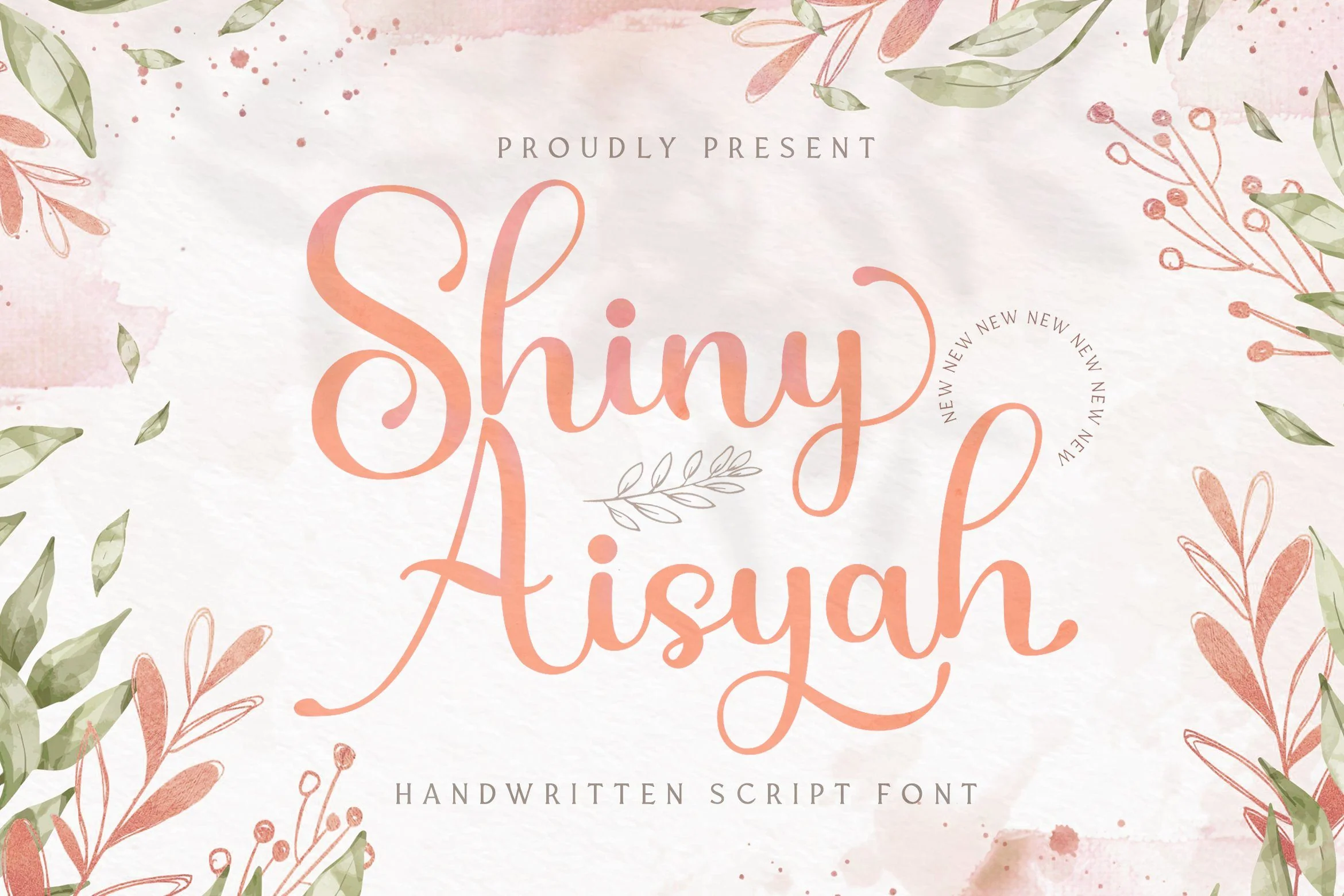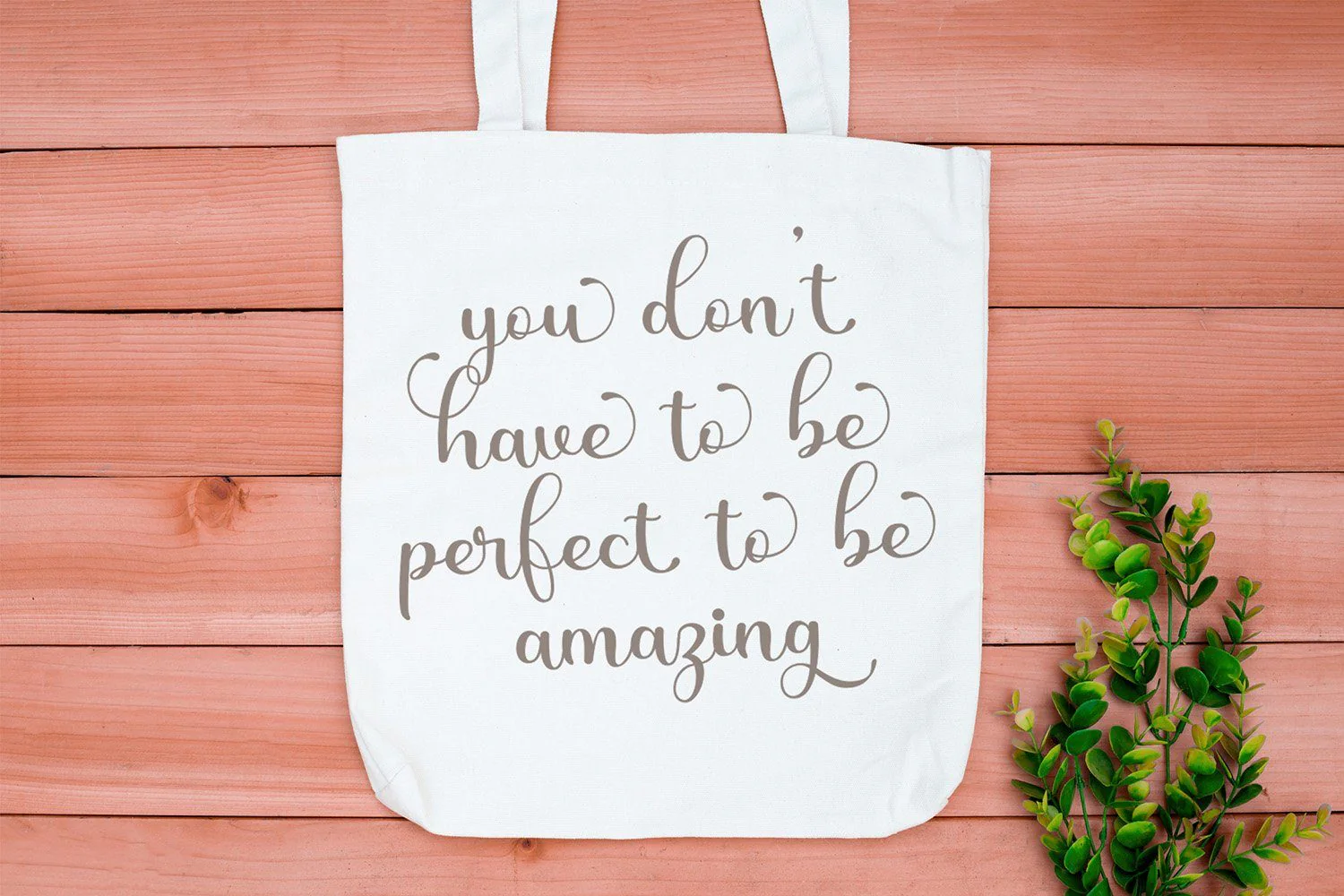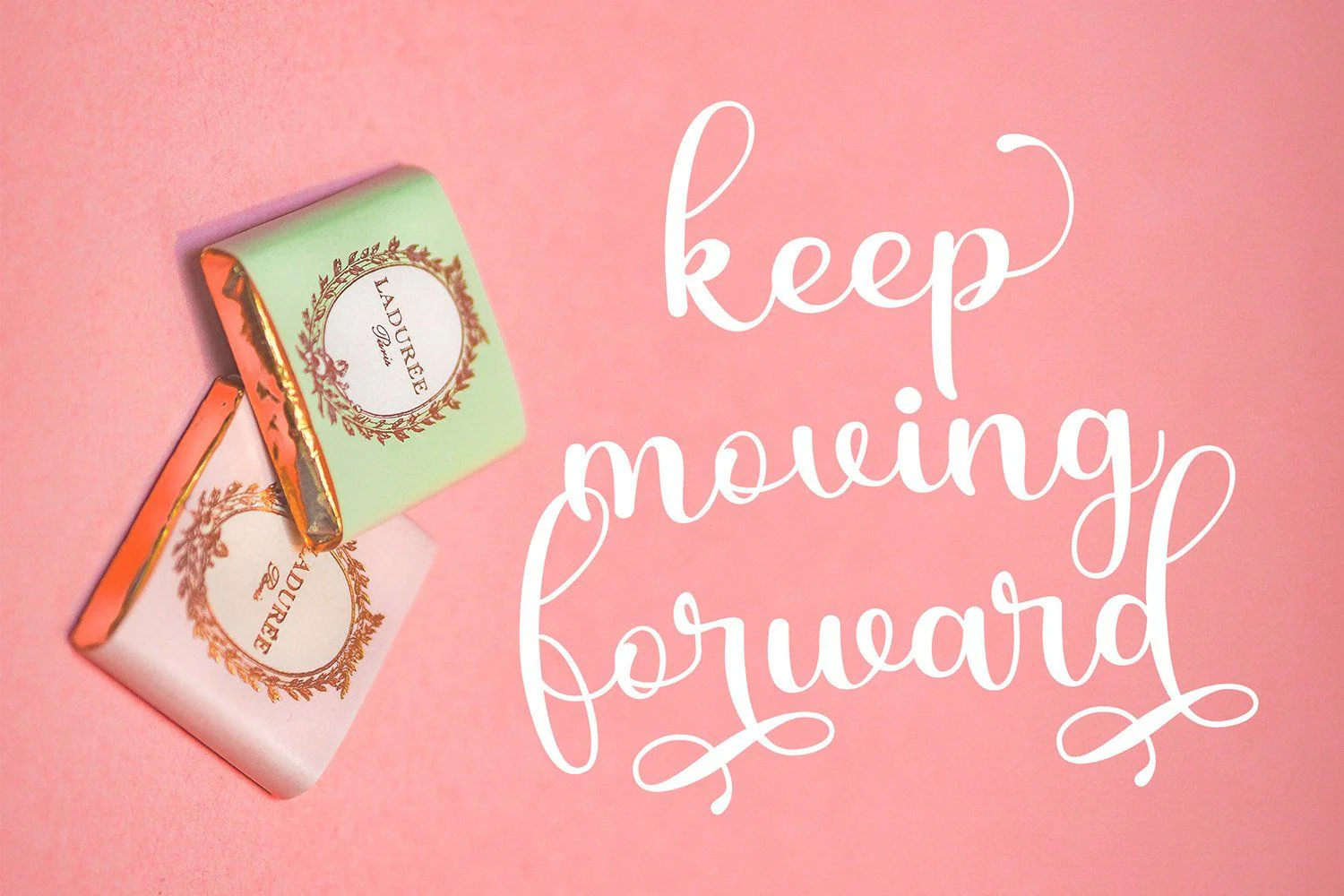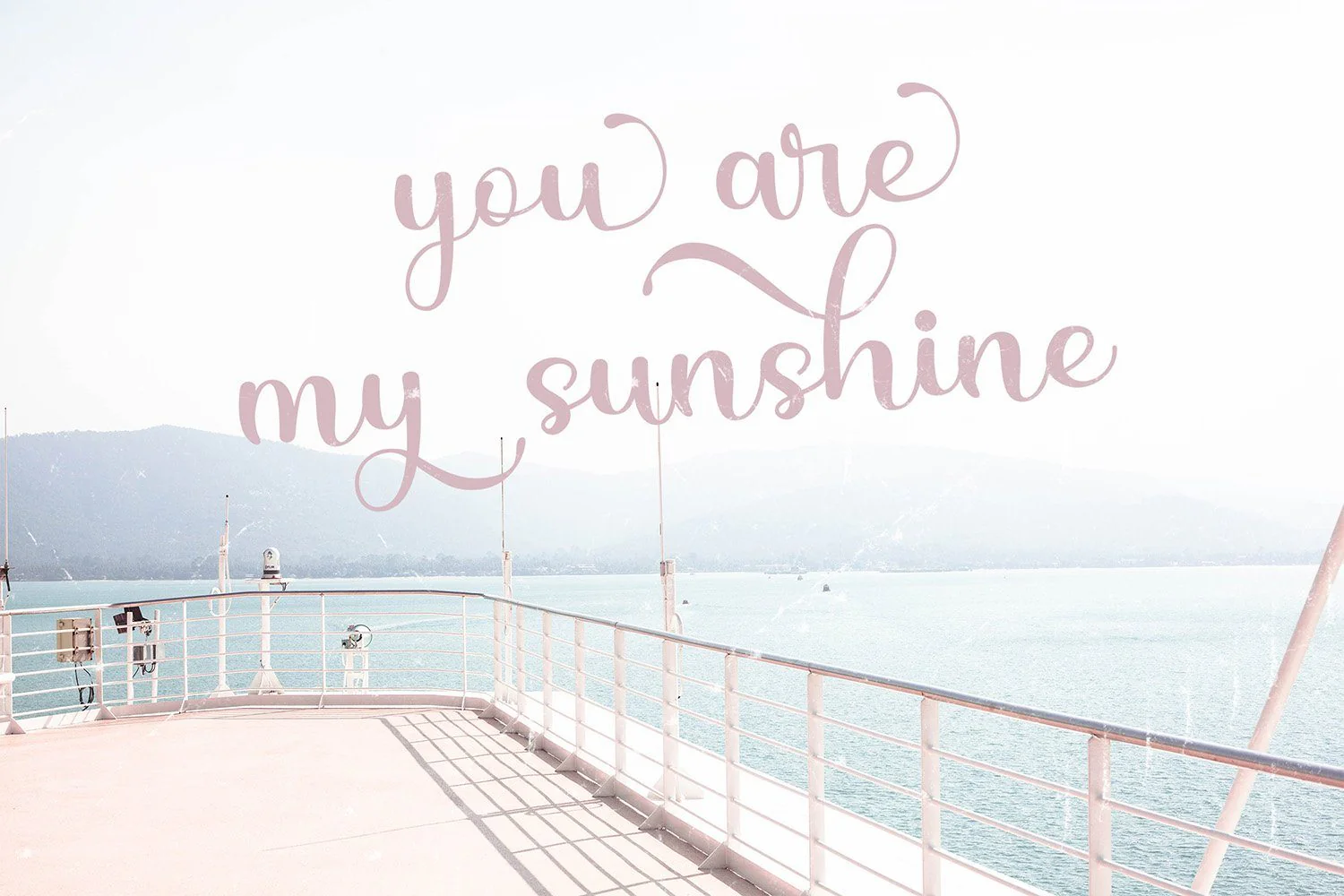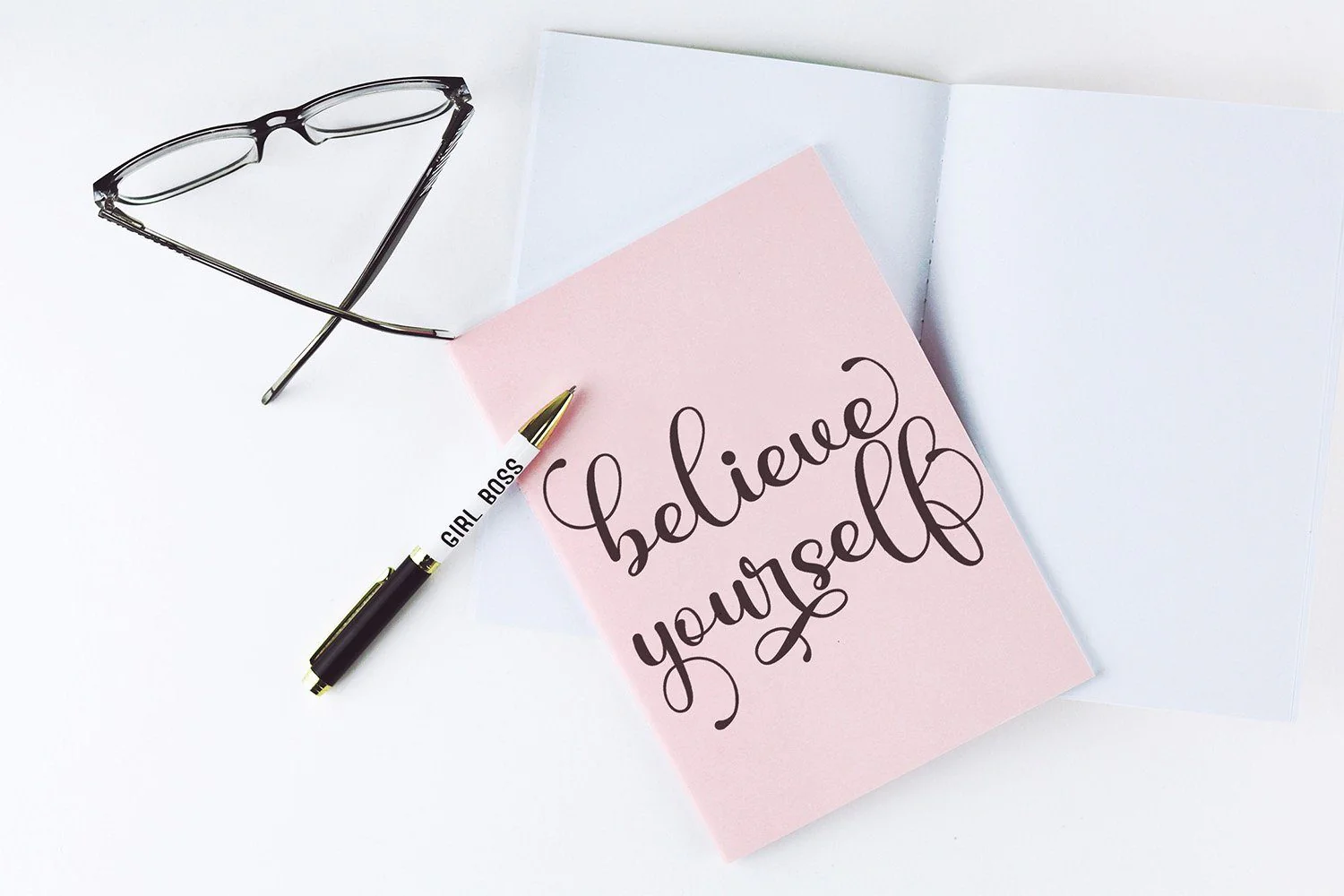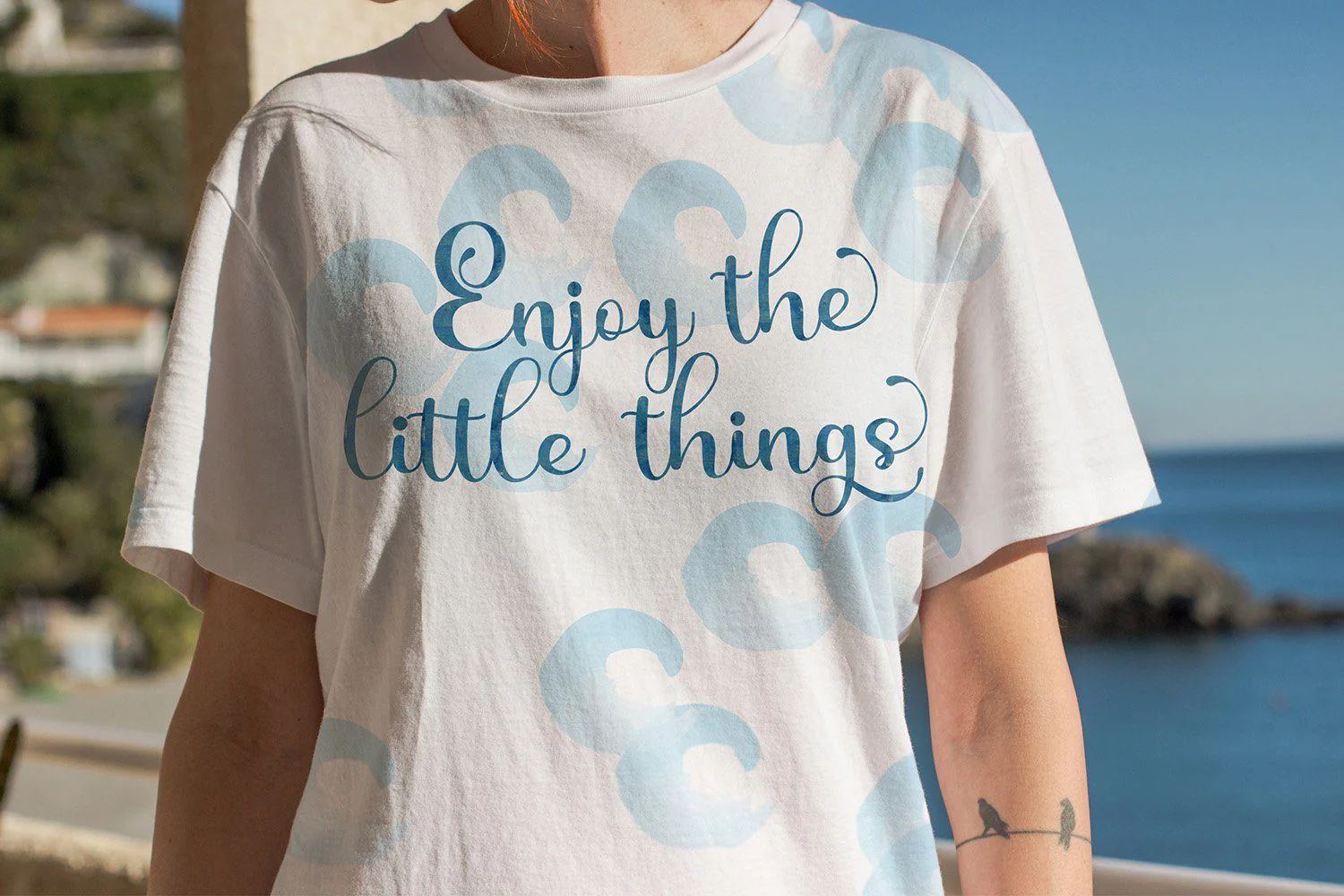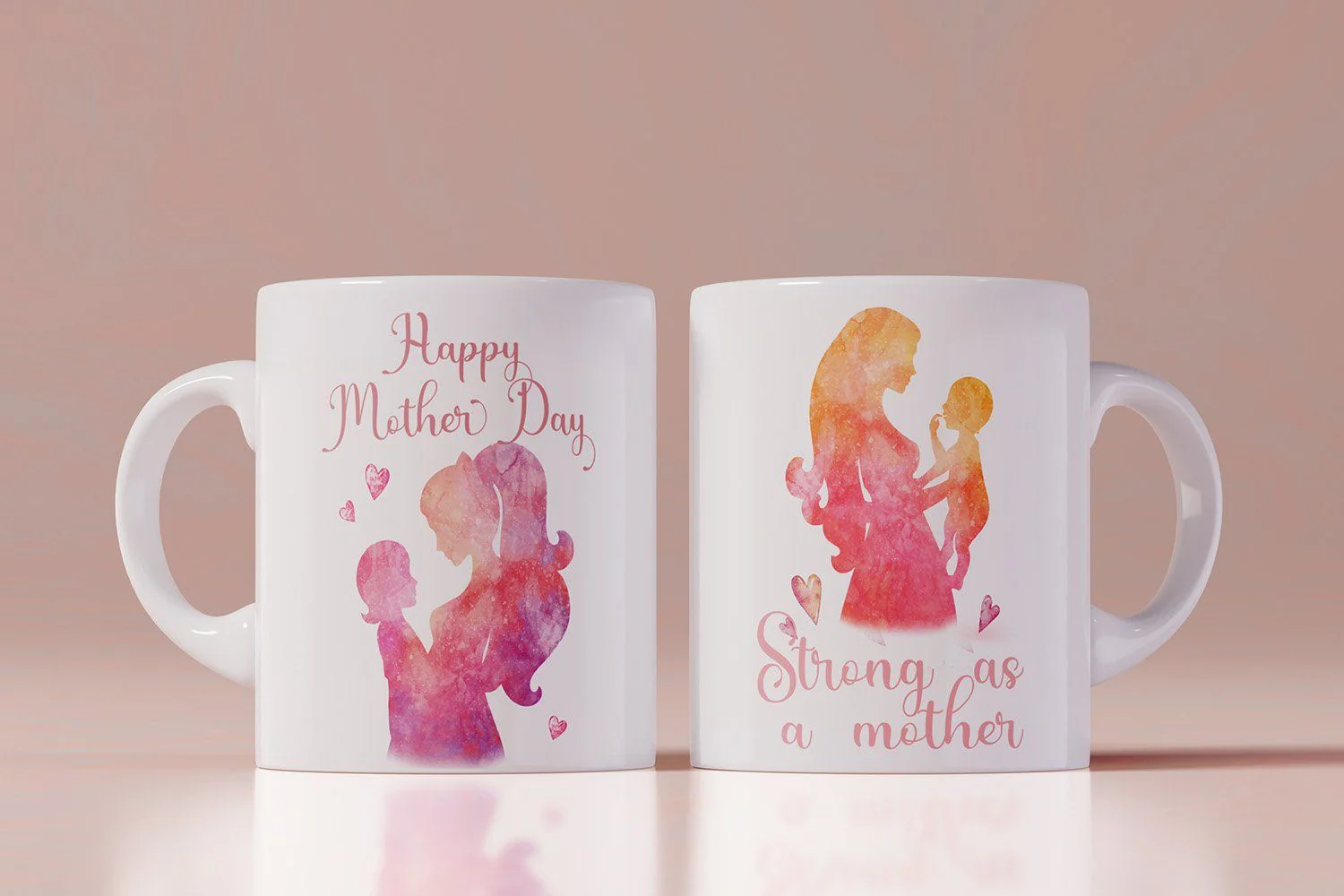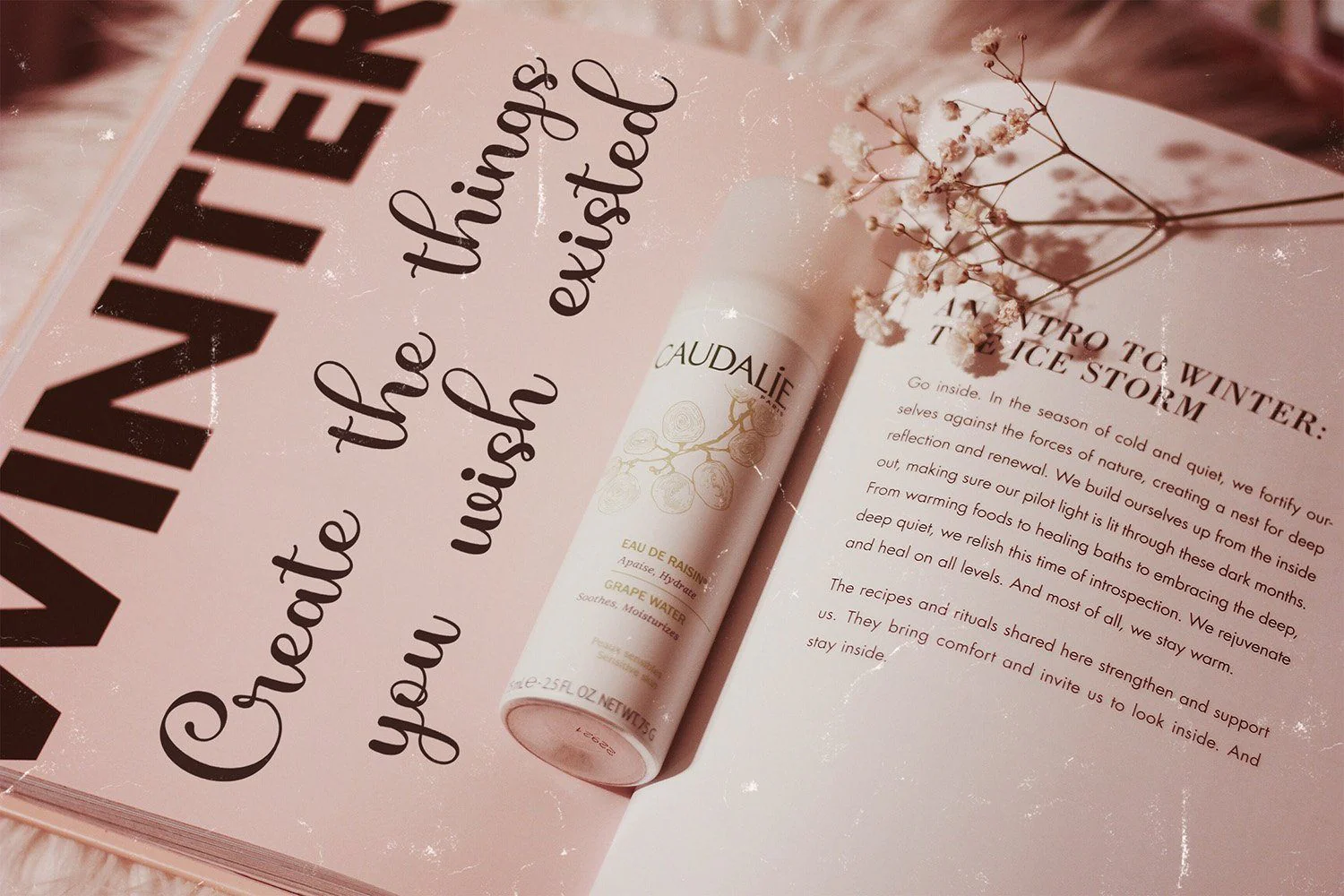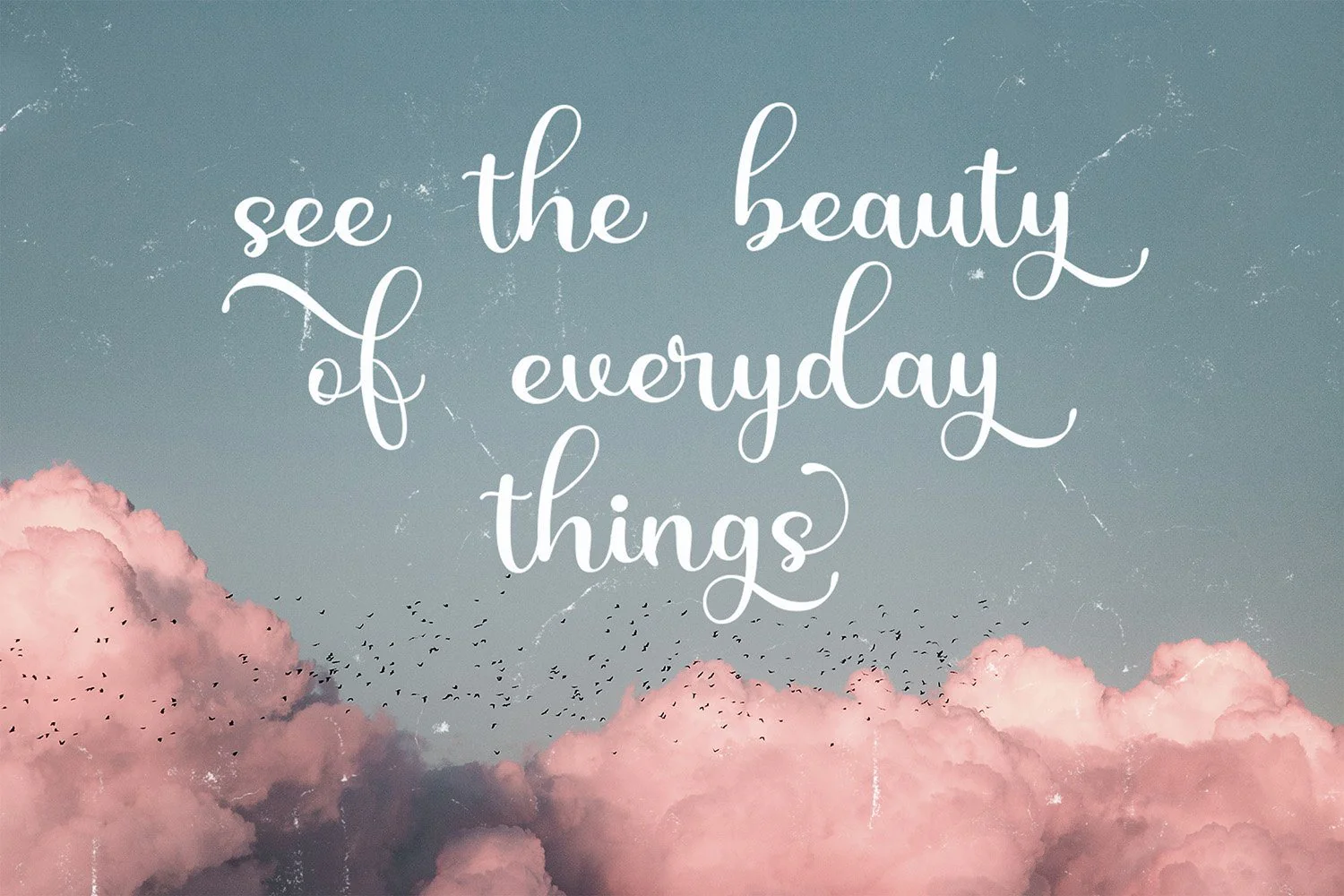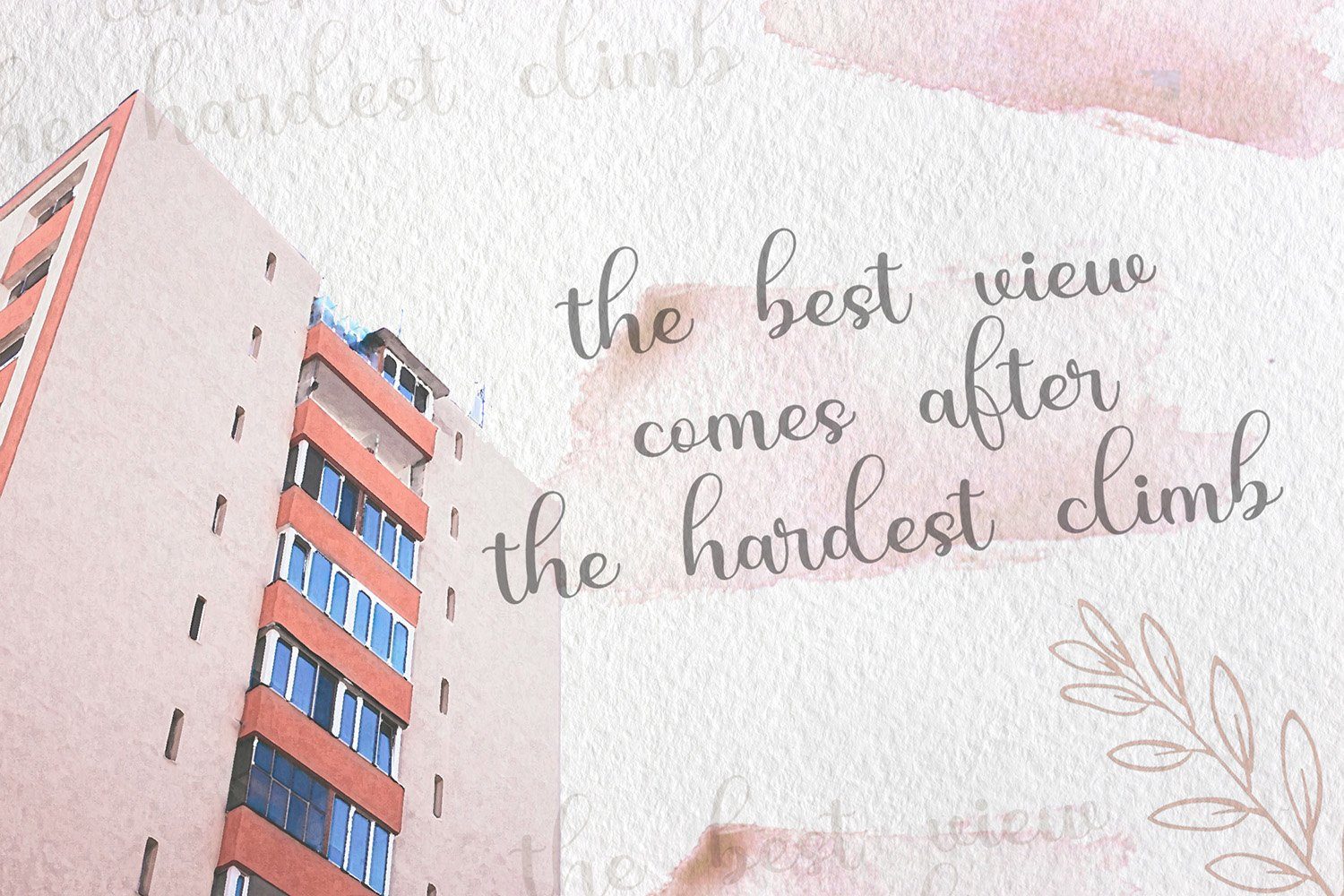
Shiny Aisyah - Handwritten Font
Introducing Shiny Aisyah - Handwritten Font
Shiny Aisyah is a Script Font with Handwritten Style. The Shiny Aisyah font made with digital brush pen strokes that making this font look authentic. This font is perfect for fashion brand, wedding invitation, business card, logo brand, signature, and then calligraphy.
This Font contains Elegant, Authentic, Luxury and has a Unique Concept.
Introducing Shiny Aisyah - Handwritten Font
Shiny Aisyah is a Script Font with Handwritten Style. The Shiny Aisyah font made with digital brush pen strokes that making this font look authentic. This font is perfect for fashion brand, wedding invitation, business card, logo brand, signature, and then calligraphy.
This Font contains Elegant, Authentic, Luxury and has a Unique Concept.